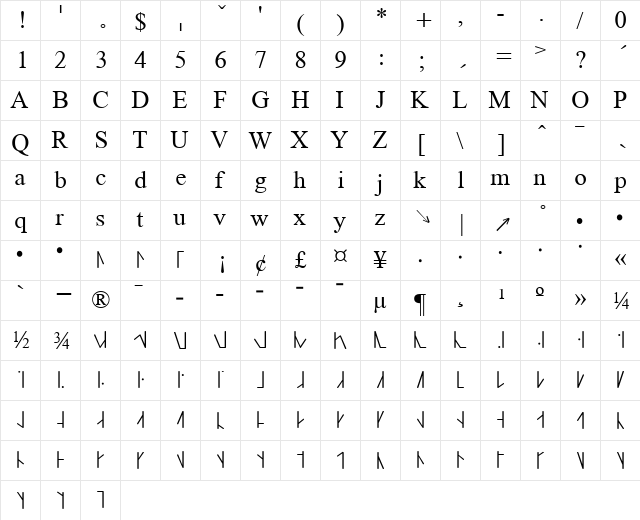
Intone-d Inton SILDoulosL Regular
Design Context for Intone-d Inton SILDoulosL Typeface
Intone-d Inton SILDoulosL offers clean, dependable letterforms without strong stylistic allegiance, making it a practical choice for designers who need flexibility.